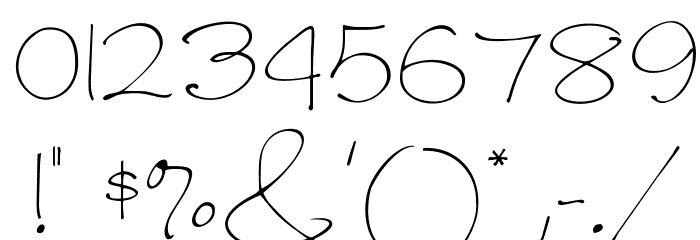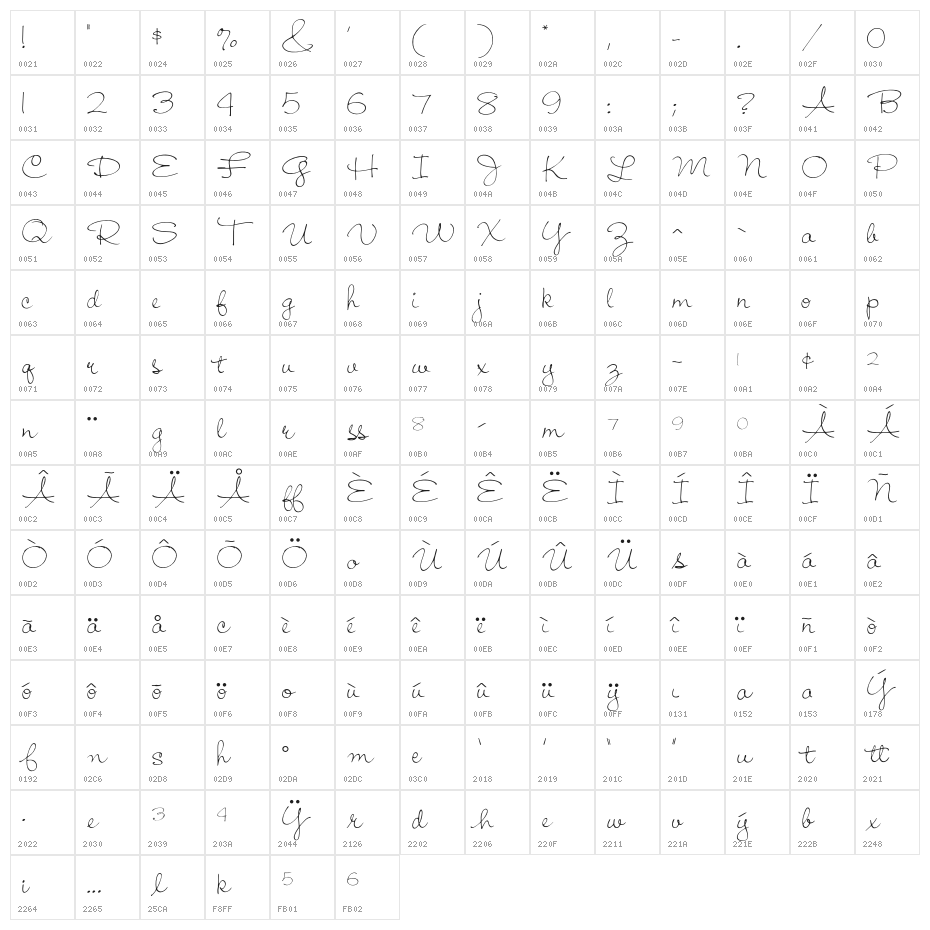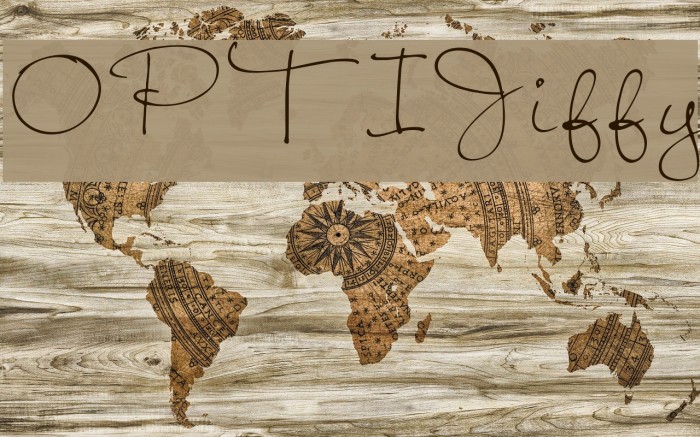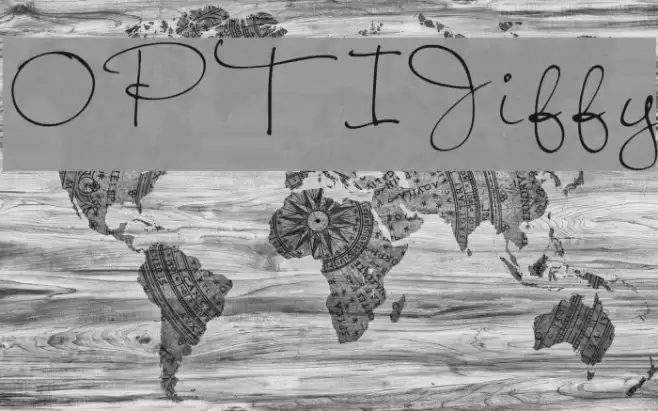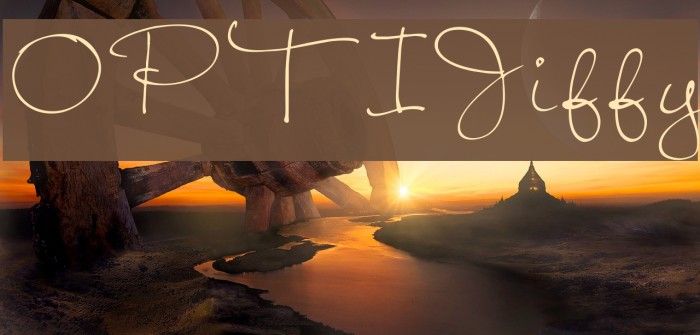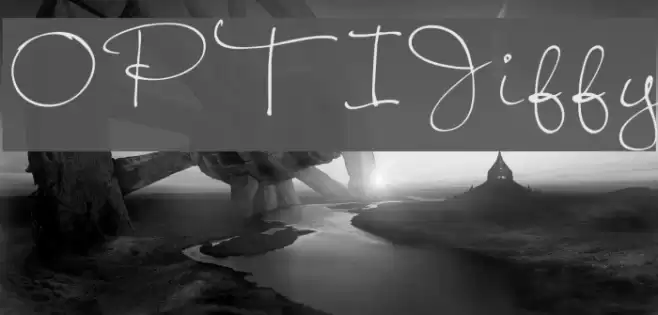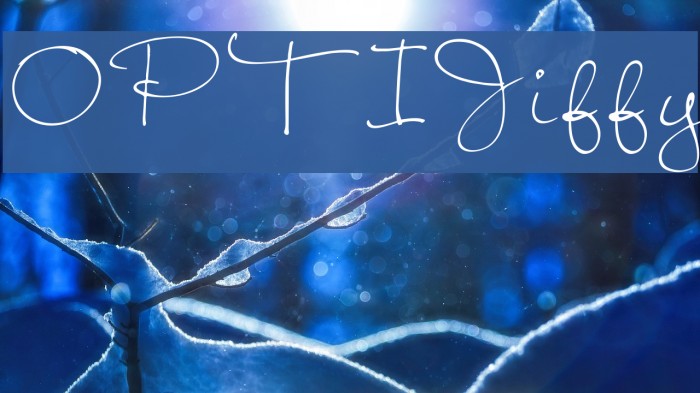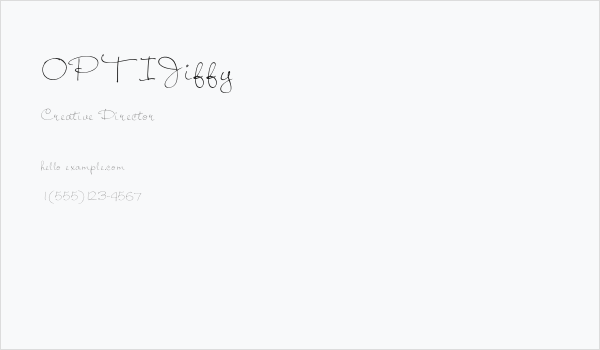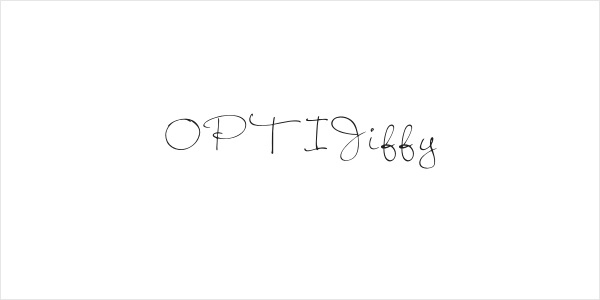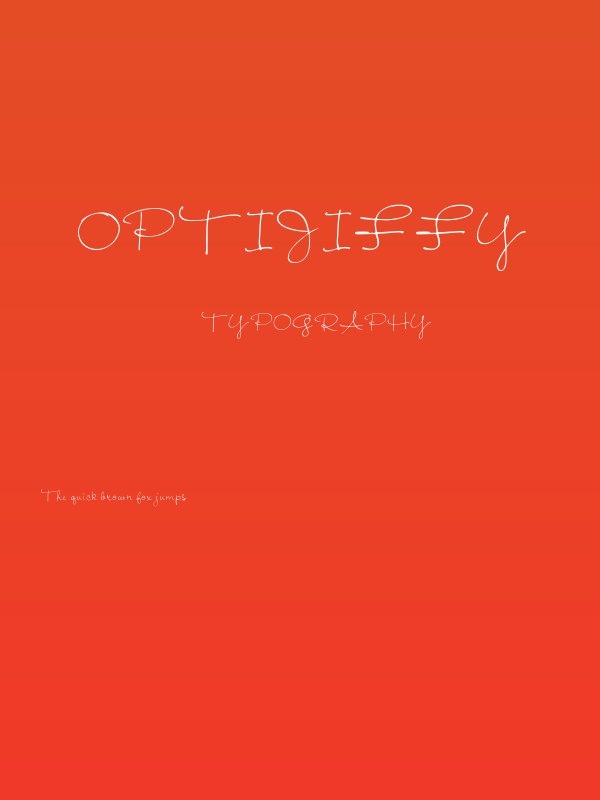
OPTIJiffy Font
OPTIJiffy Description
This font features a playful and flowing script style, characterized by its elegant and whimsical curves. The uppercase letters are tall and slender, with a slight slant that adds a sense of motion and fluidity. The lowercase letters are more rounded and connected, creating a cohesive and harmonious look. The numerals are consistent with the overall style, maintaining the same fluidity and elegance. Special characters are thoughtfully designed, complementing the alphabet with their unique flair. This font's handwritten appearance gives it a personal and approachable feel, making it suitable for a variety of creative applications.
| Use Case | Logos, Invitations, Creative projects |
| Proposed Projects | Ideal for wedding invitations, greeting cards, personal branding, and creative projects that require a touch of elegance and personality. |